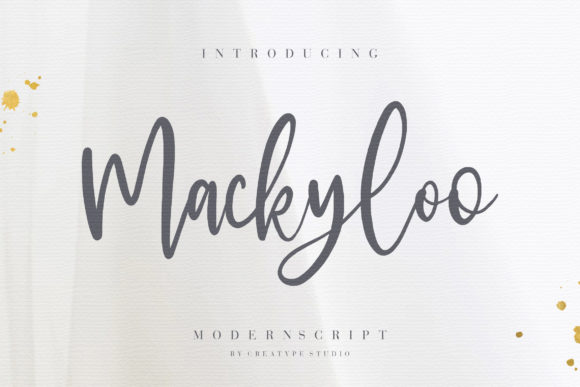
Step into the realm of elegance and sophistication, where your designs will blossom with a touch of modern calligraphy. Introducing Mackyloo Font – the crown jewel of script fonts, meticulously crafted to bring life to your creative vision.
With its graceful strokes, delicate curves, and undeniable allure, Mackyloo beckons you to explore the world of exquisite typography. Say goodbye to ordinary fonts and embrace the artistry of Mackyloo, the ultimate expression of timeless beauty.
Unleash your imagination and witness the transformation as Mackyloo adorns your branding projects, logos, and wedding designs with an aura of refined elegance. Let its presence elevate social media posts, advertisements, and product packaging, leaving an indelible mark of sophistication. Mackyloo is the perfect dance partner for photography, watermarks, invitations, and stationery, effortlessly adding a touch of heartfelt authenticity to every creation.
Enter the world of Mackyloo, a font family steeped in versatility, where each glyph and swash effortlessly dances across your screen, inviting you to play with creativity and explore endless possibilities. PUA-encoded for your convenience, Mackyloo grants you the power to unlock the full potential of its enchanting characters and create masterpieces that leave your audience breathless.
Mackyloo, a creation of CreatypeStudio, is not merely a font; it's an invitation to transcend the ordinary and embrace the extraordinary. As a font family, it offers a symphony of styles, each note carefully orchestrated to harmonize with your creative vision.